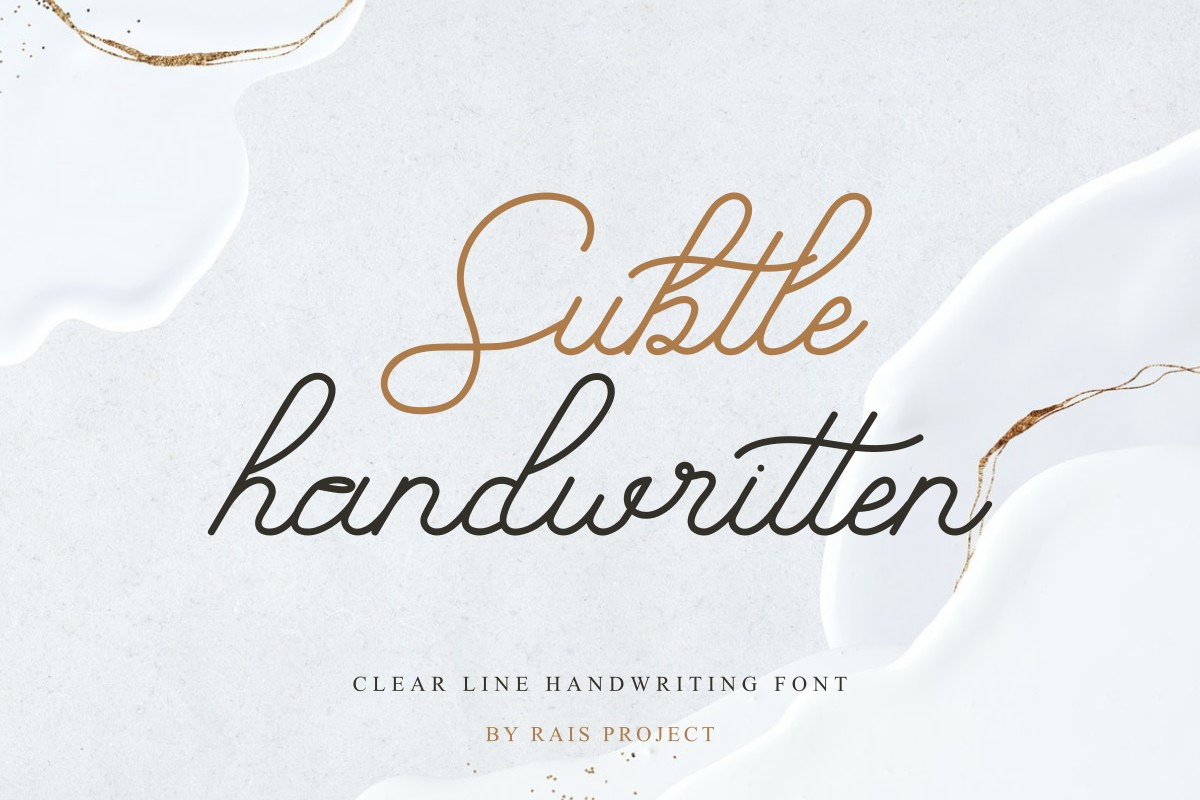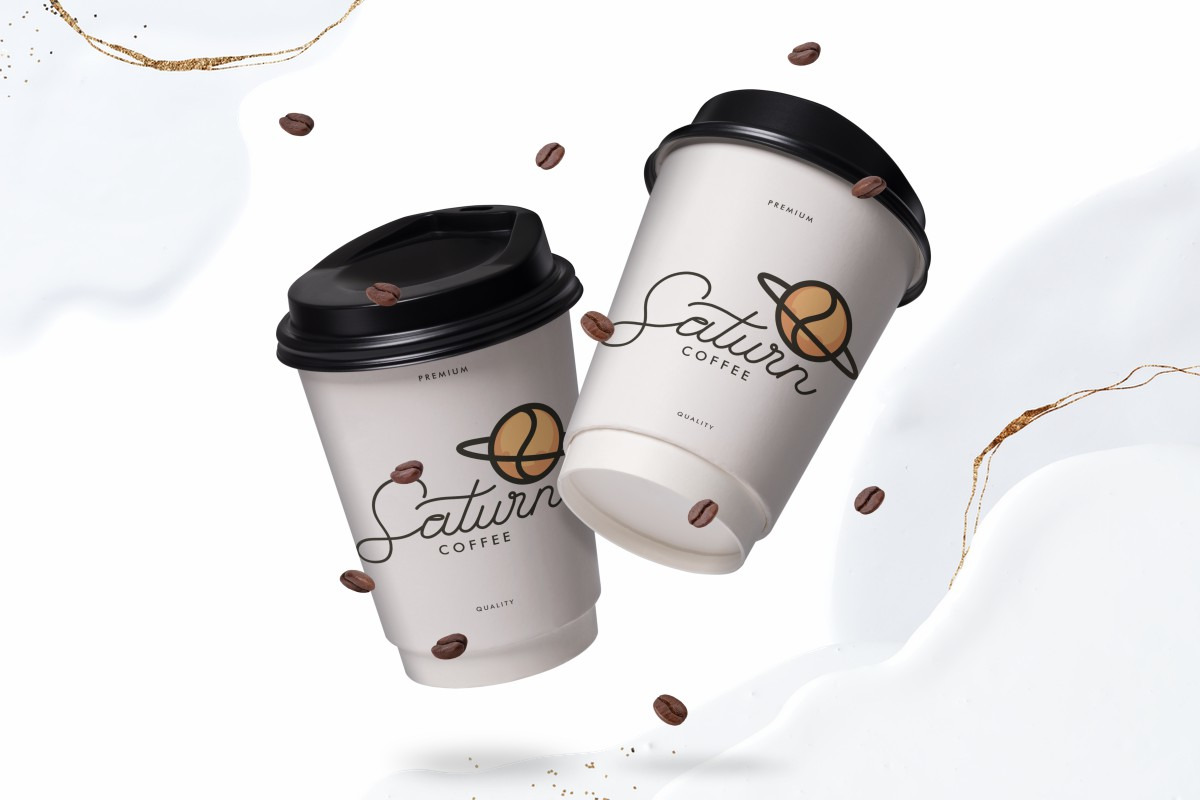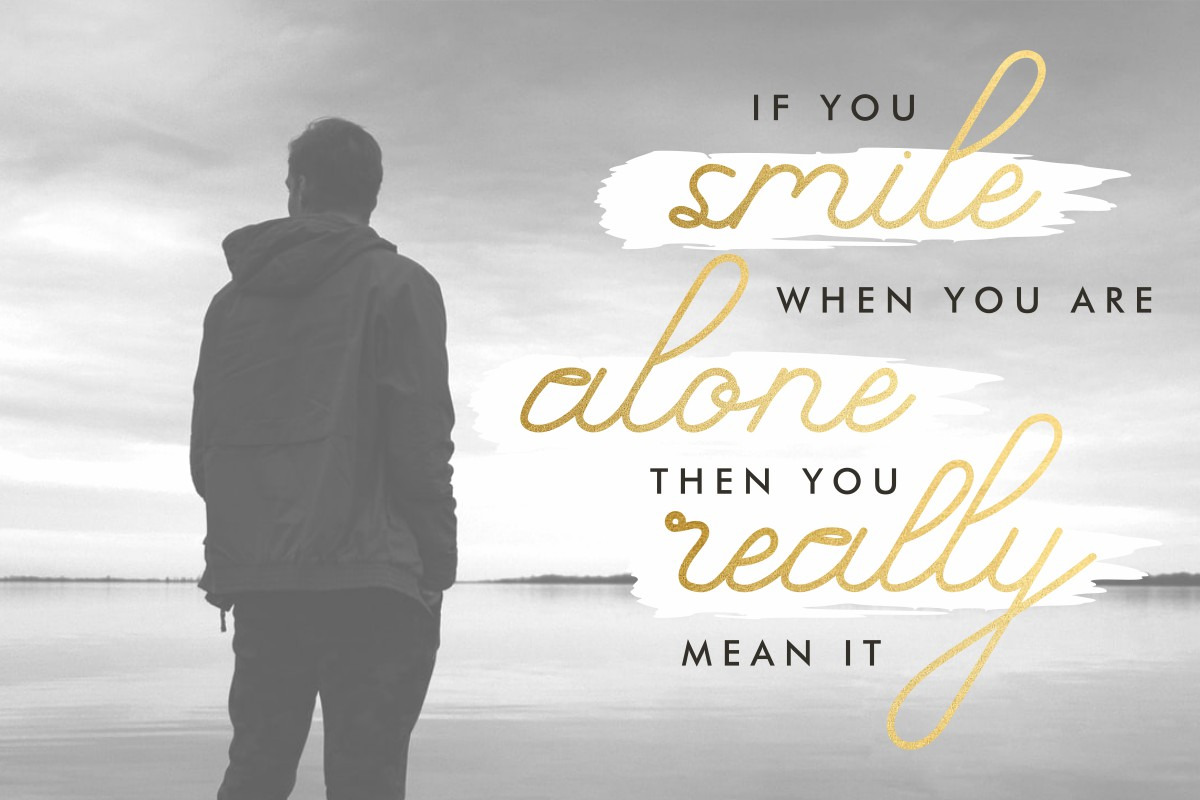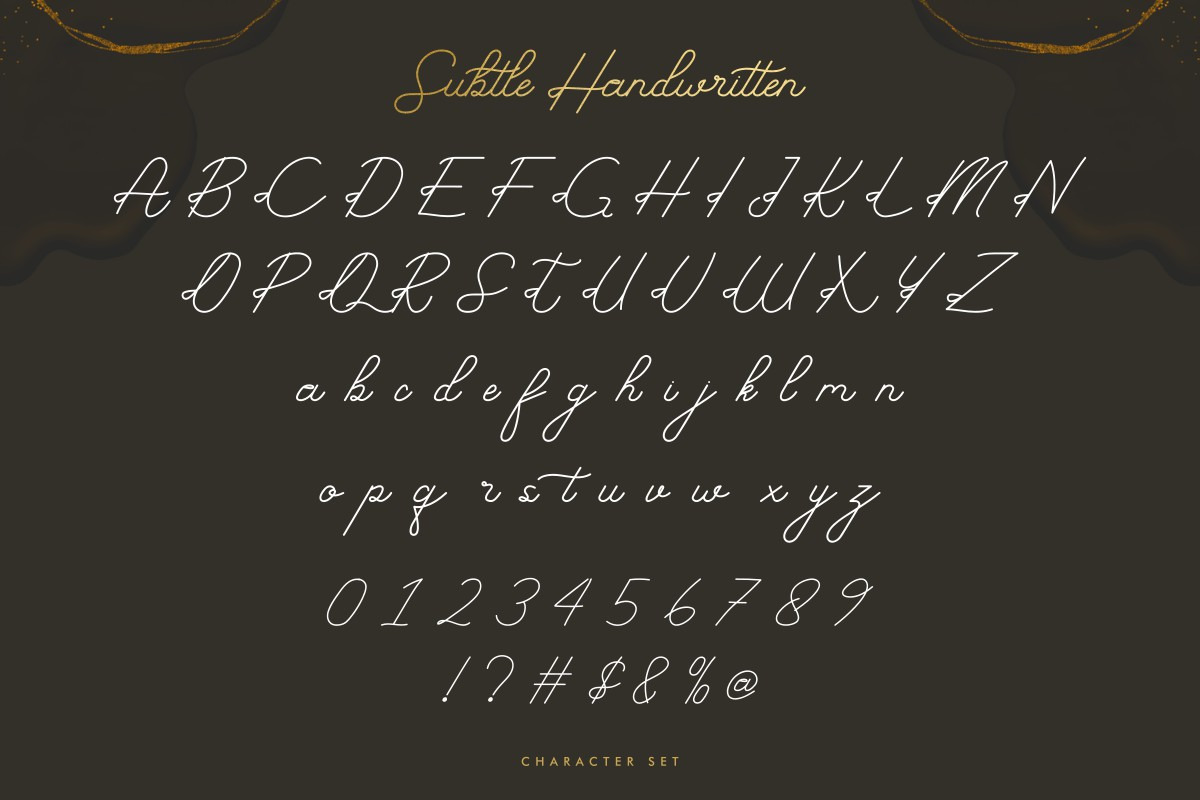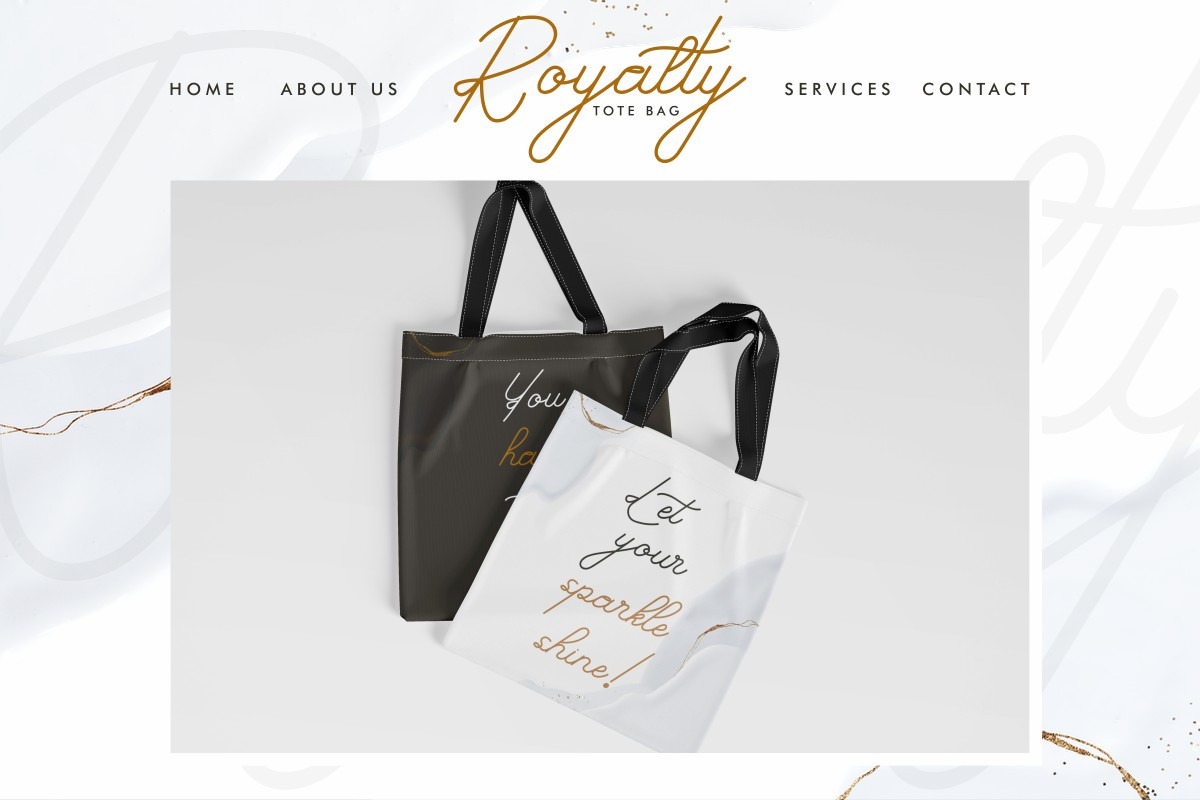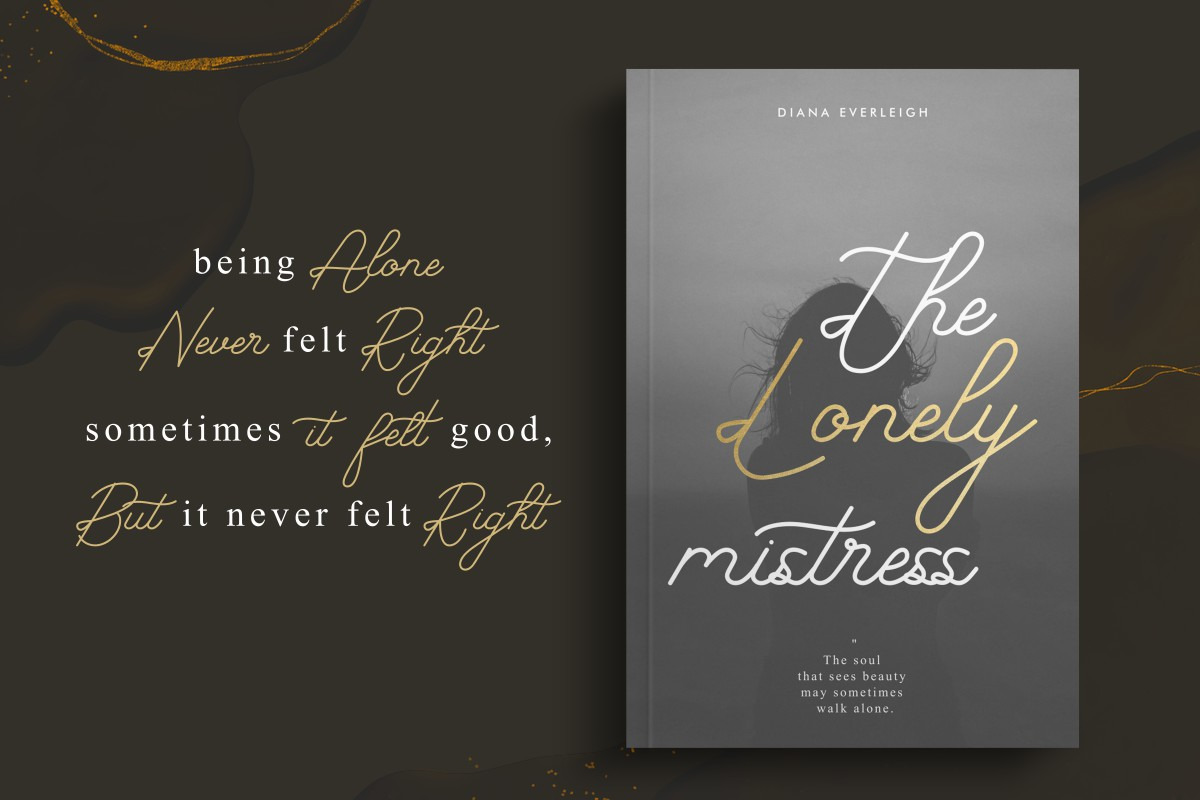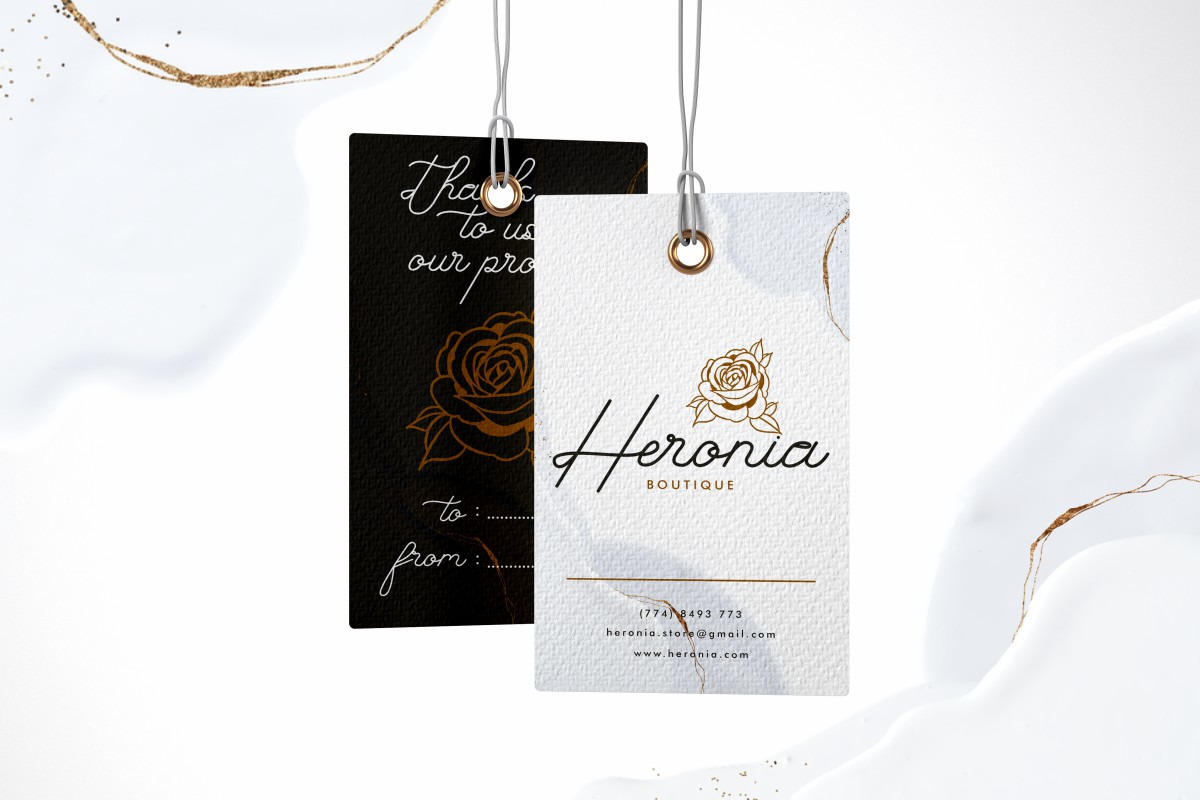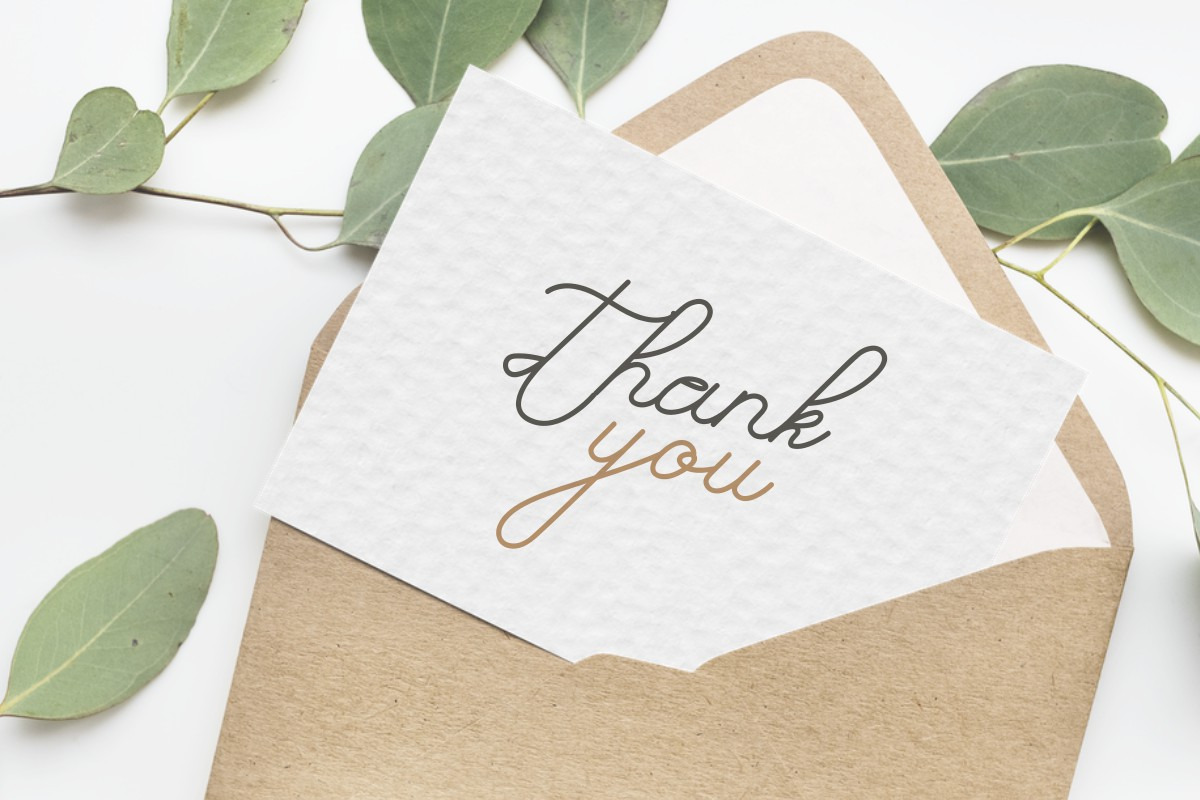
Subtle Handwritten Monoline Font
Subtle Handwritten is a beautiful monoline handwriting script font with sophisticated style. It will be great for Invitation, branding, watermark, promotion, events, advertising and any projects that need calligraphy handwriting style.
Subtle Handwritten Monoline Font includes full set of cool uppercase and lowercase letters, numerals, a large range of punctuation and ligatures. All letters has hand-lettered style to make it unique yet cool looking design.